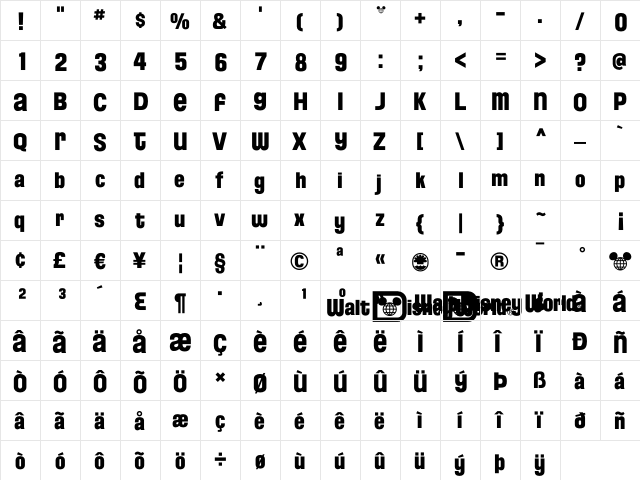
Florida Project Phase Two Regular
| Designer | Justin Callaghan (with Spencer Parks) |
Design Context for Florida Project Phase Two Typeface
Florida Project Phase Two offers clean, dependable letterforms without strong stylistic allegiance, making it a practical choice for designers who need flexibility.